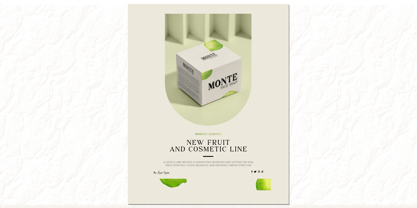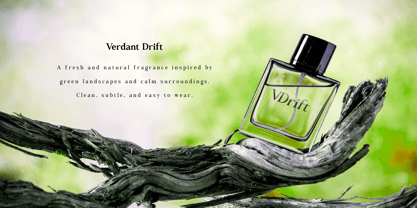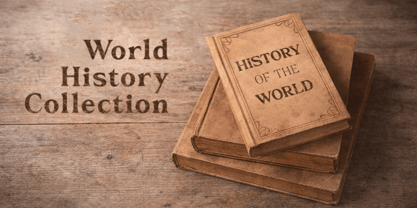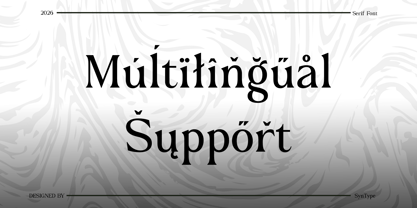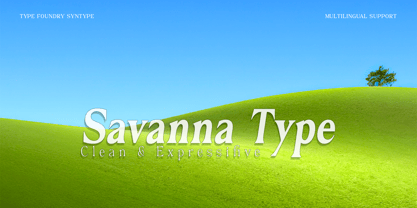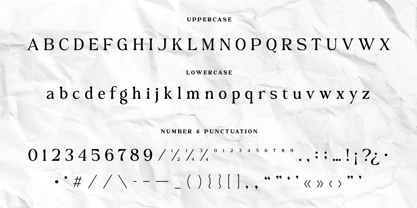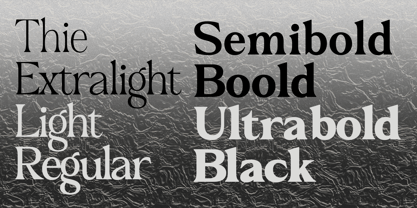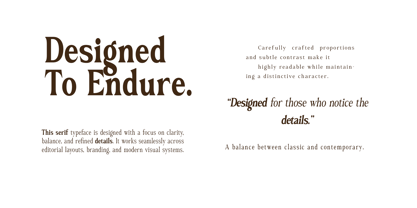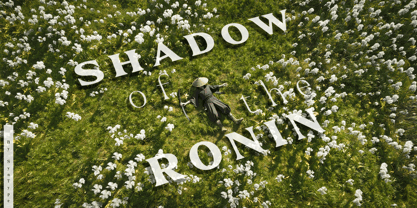
Monowave
by SynType
The Monowave Font Family was designed by M Khafid and published by SynType. Monowave contains 9 styles and family package options. More about this family
Monowave is a modern editorial serif typeface designed with a refined balance between elegance and functionality. Featuring high-contrast strokes and carefully crafted letterforms, it delivers a sophisticated and timeless aesthetic. This typeface comes in a complete family ranging from Thin to Black, providing excellent flexibility for various design needs. It also includes multilingual support, making it suitable for a wide range of global projects. Monowave is perfect for editorial layouts, fashion branding, luxury packaging, logos, and high-end visual identities. Its versatility allows it to perform beautifully in both large display settings and more structured typographic compositions. With its clean structure and expressive character, Monowave helps create impactful and elegant designs with ease.